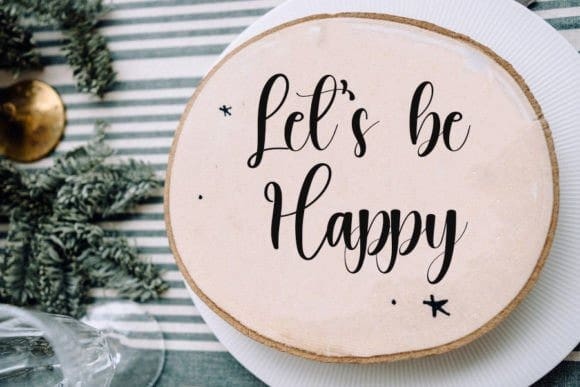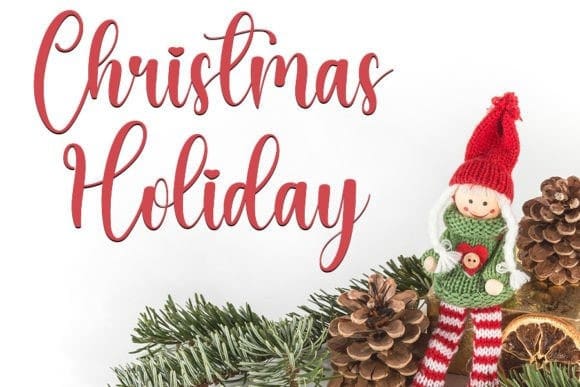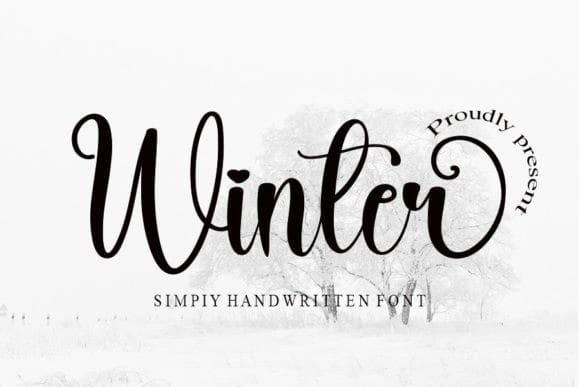
Winter Simpiy Font
Winter Simpiy Font is a casual and relaxed script font. Fall in love with its incredibly versatile style and use it to create gorgeous wedding invitations, beautiful stationary art, eye-catching social media posts, and much more!